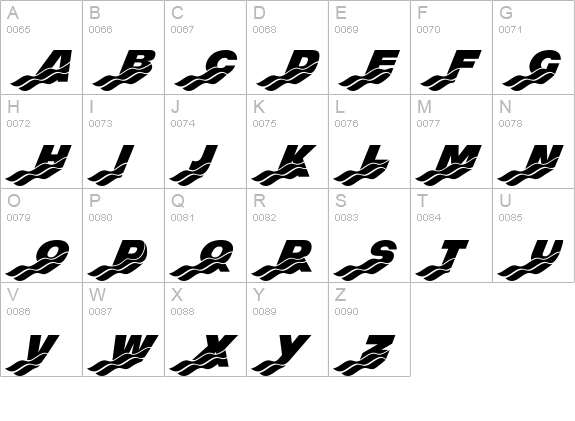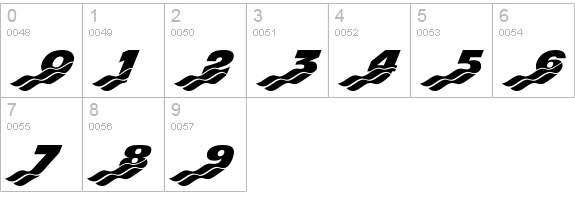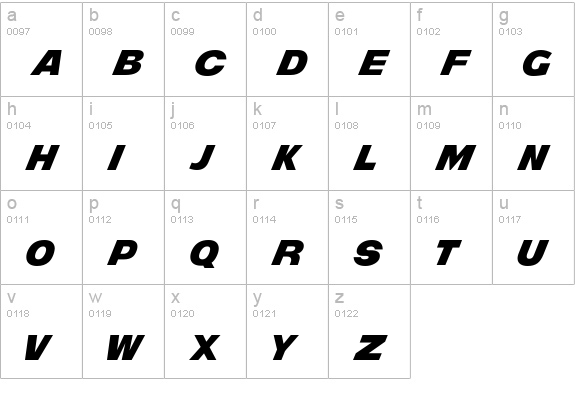
Introducing Mighty Rapids font, a bold and dynamic typeface that commands attention with its strong, flowing lines and powerful presence. Perfect for making a statement on posters, headlines, and branding materials, Mighty Rapids exudes confidence and energy. This versatile font is ideal for a variety of design projects, from advertising to packaging to social media graphics. Its striking appearance is sure to grab the viewer's attention and leave a lasting impression. Whether you're looking to make a bold statement or add a touch of excitement to your designs, Mighty Rapids has you covered. And the best part? Mighty Rapids font is available for free download at FontsMarket.com. That's right - you can add this stunning typeface to your collection at no cost, making it the perfect choice for designers on a budget or anyone looking to enhance their creative projects with a touch of boldness and flair. Don't miss out on the opportunity to elevate your designs with the powerful impact of Mighty Rapids font.